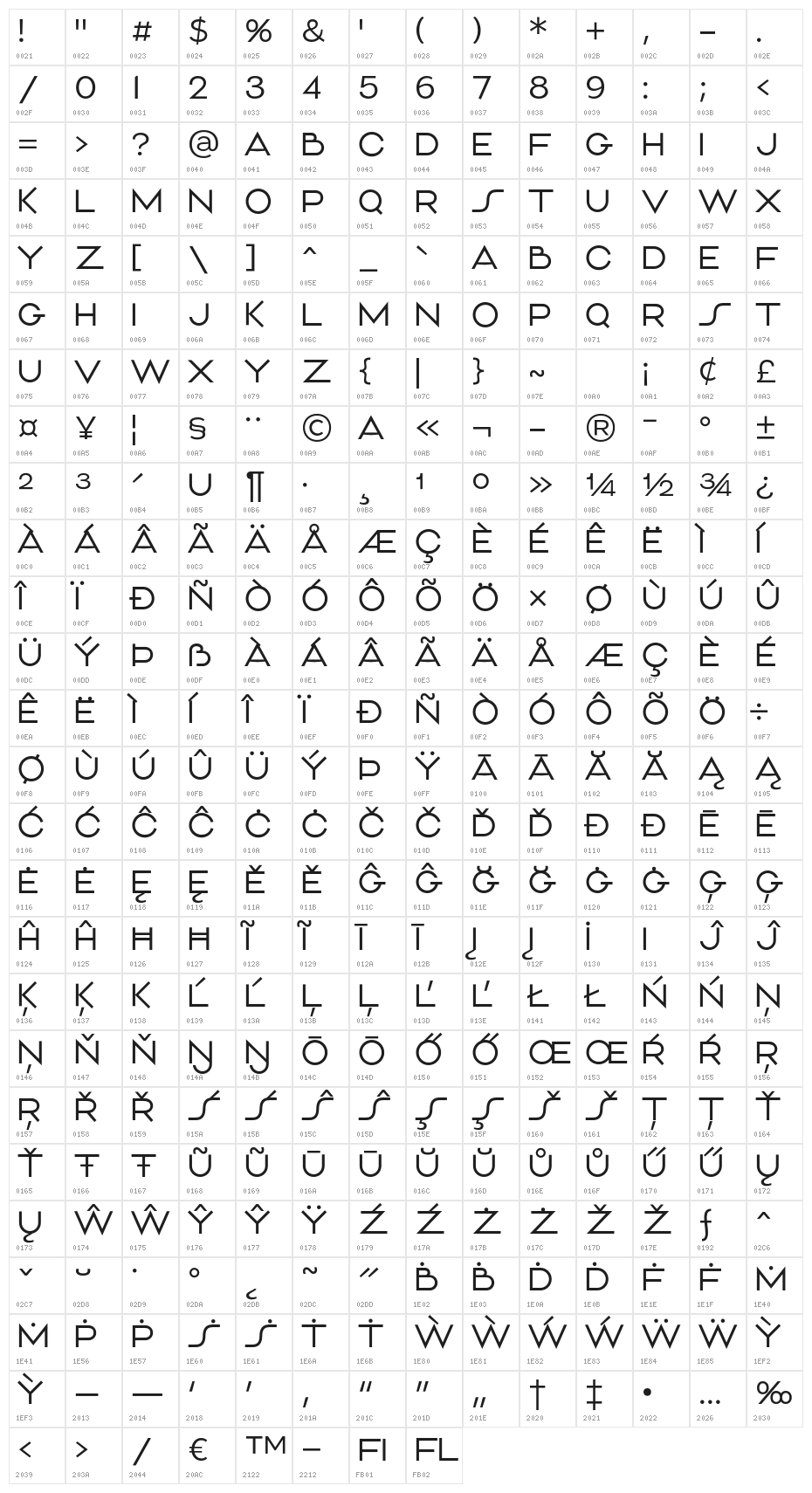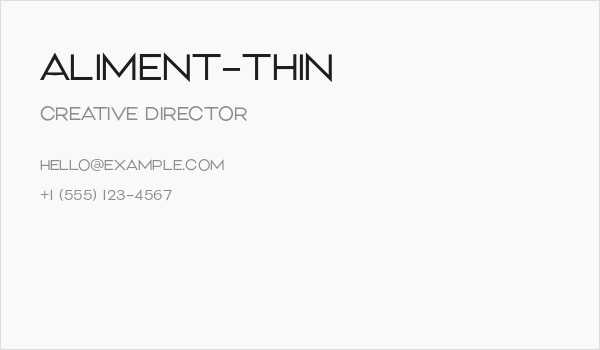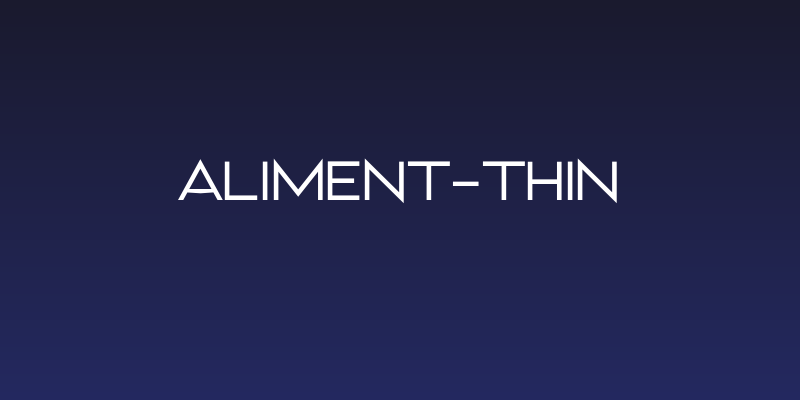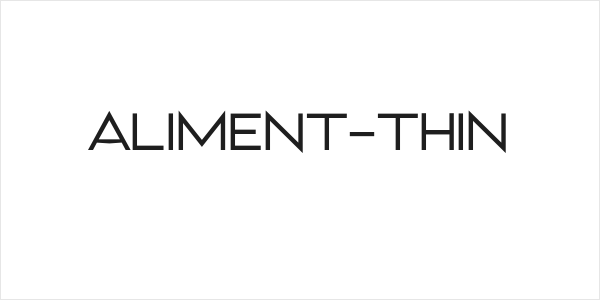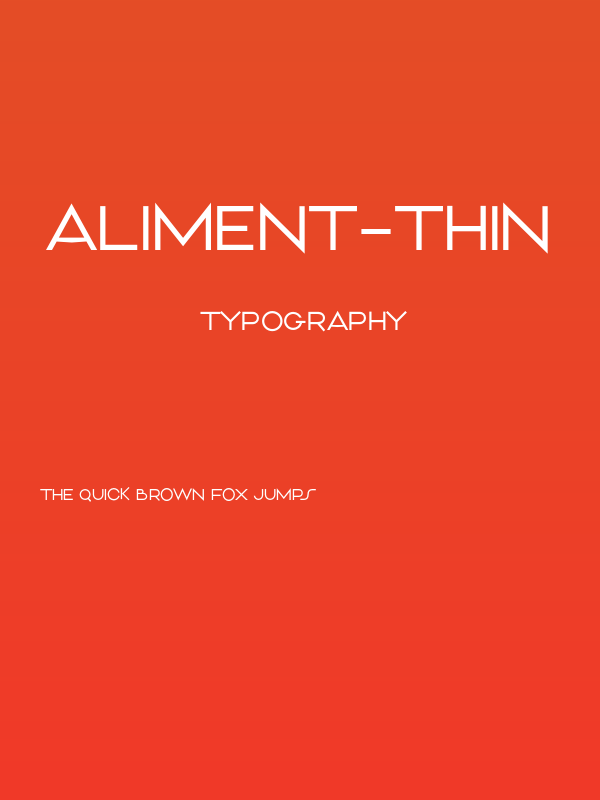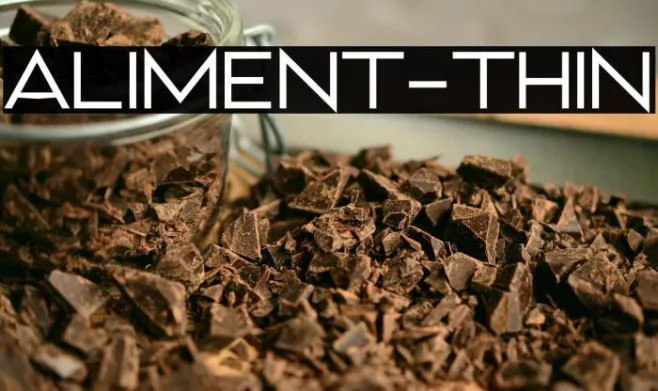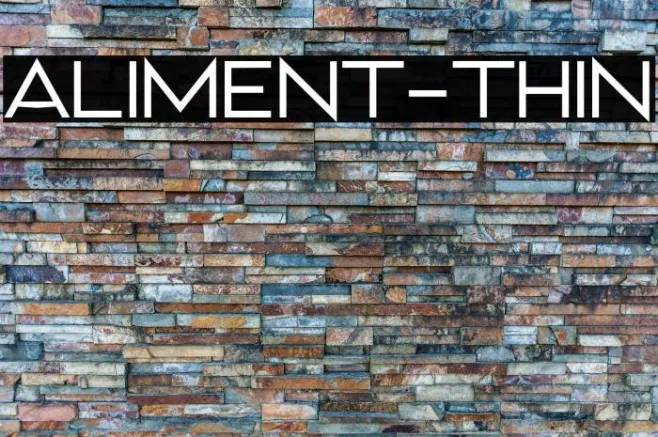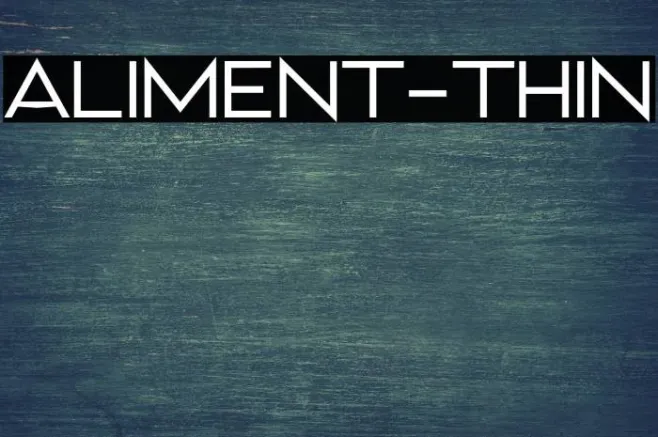
Aliment-Thin Font
Aliment-Thin Description
This font features a sleek, geometric design with clean lines and a modern aesthetic. The uppercase and lowercase letters are crafted with precision, offering a uniform appearance that is both stylish and functional. The numerals are distinct and easy to read, making them suitable for various applications. Special characters are included, maintaining the font's cohesive look. The overall design is minimalistic, emphasizing clarity and readability while retaining a contemporary edge.
| Proposed Projects | Ideal for branding, digital interfaces, modern print media, and minimalist design projects. |